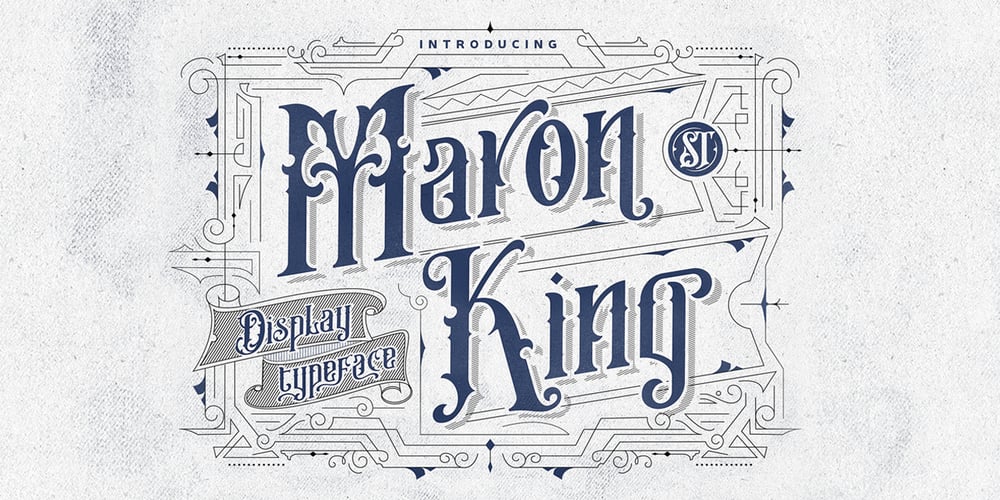
Maron King
Maron King font
Maron King Font Family was designed by panji nugroho and published by Storictype. Maron King contains 1 styles and family package options. Introducing new display typeface its called Maron KingInspired by victorian style with classic style .OpenType features some characters that allows you to mix and match pairs of letters to fit in your designs. It’s an all caps typeface, with strong and sleek letters.offering an infinite opportunity to customise and create logos, headlines, titling, product packaging, labeling, logo, classic shop, badges, movie title, t-shirt, posters, label, greetingcard, letterhead, book cover, etc.To access the alternate glyphs, you need a program that supports OpenTypeFeatures : Character Set A-Z Numerals & Punctuations (OpenType Standard) Ligatures Accents (Multilingual characters) Thanks and enjoy designing